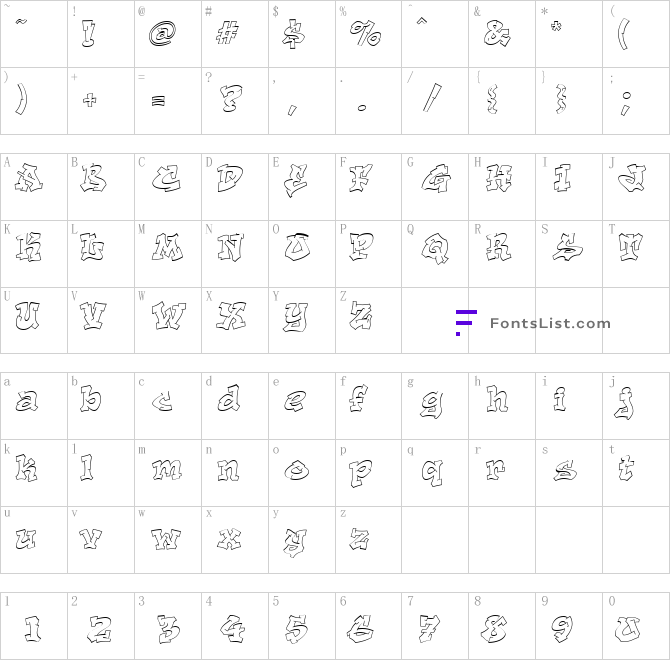
- Font Name:Aerosol
Aerosol.ttf is a very beautiful artistic font, Aerosol.ttf is widely used in the design and printing of various books and pictures,Aerosol.ttf has a strong visual impact,Aerosol.ttf is a commonly used font in newspapers, magazines and books, and is used in posters, e-commerce Poster design, store design, logo design, font design and other fields.Aerosol.